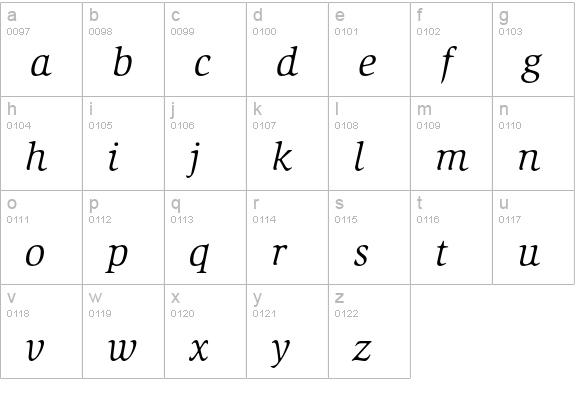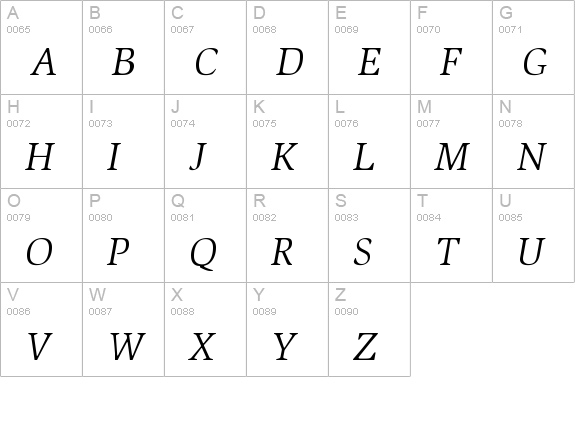
AT Slimbach Book Italic Font Details
AT Slimbach Book Italic is a comfortable, highly readable, italic variant in the AT typeface family \xE2\x80\x94 well suited to long-form body text, articles, and editorial content.
AT Slimbach Book Italic is a beautifully crafted font designed by renowned typographer Robert Slimbach. Its elegant and sophisticated Italic style exudes a sense of refinement and grace, making it the perfect choice for projects that require a touch of sophistication. This font features delicate curves and subtle slant that adds a dynamic and flowing quality to any text. AT Slimbach Book Italic is versatile and can be used for a wide range of design applications, from editorial layouts to branding materials. Best of all, AT Slimbach Book Italic is available for free download at FontsMarket.com. This means you can easily incorporate this stunning font into your projects without any cost. Don't miss out on the opportunity to enhance your designs with the timeless beauty of AT Slimbach Book Italic. Download it today and elevate your typography game to new heights.